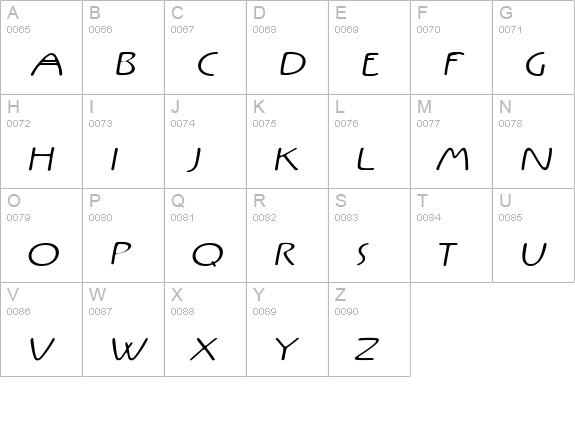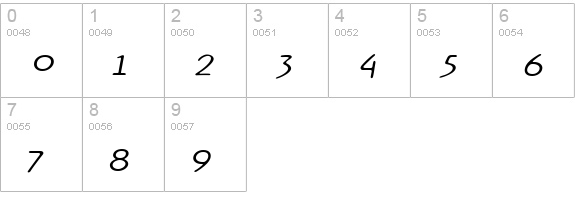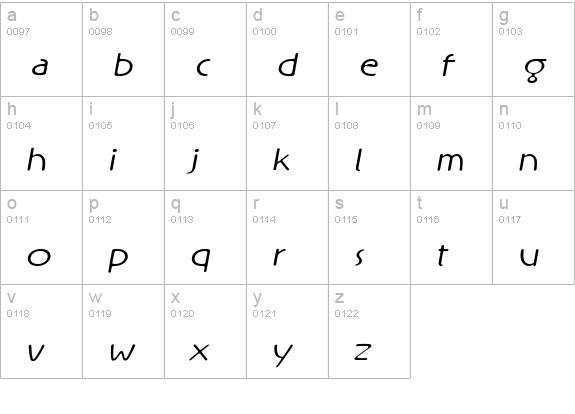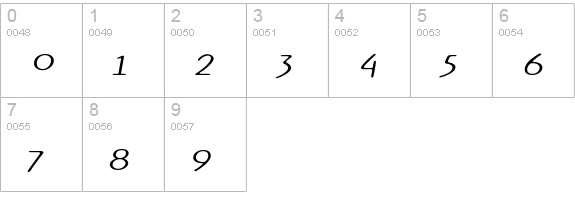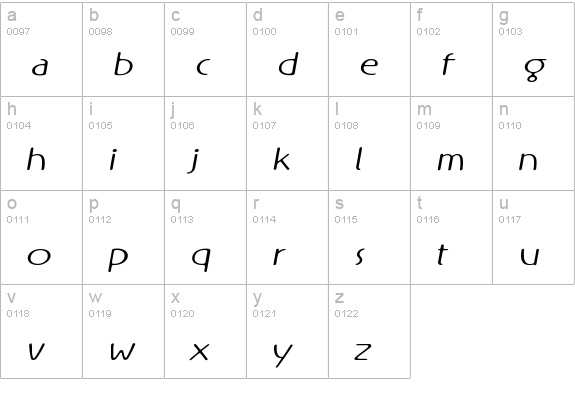
Rx-OneFive Font Details
Rx-OneFive is a modern and sleek font that is perfect for adding a touch of sophistication to your designs. This versatile typeface features clean lines and a contemporary style that makes it suitable for a wide range of projects, from branding to editorial design. With its bold yet elegant appearance, Rx-OneFive is sure to make a statement and leave a lasting impression. Best of all, Rx-OneFive is available for free download at FontsMarket.com. Whether you're a designer looking to add a fresh font to your collection or a creative looking for a new way to elevate your projects, Rx-OneFive is the perfect choice. Download this stylish font today and take your designs to the next level!